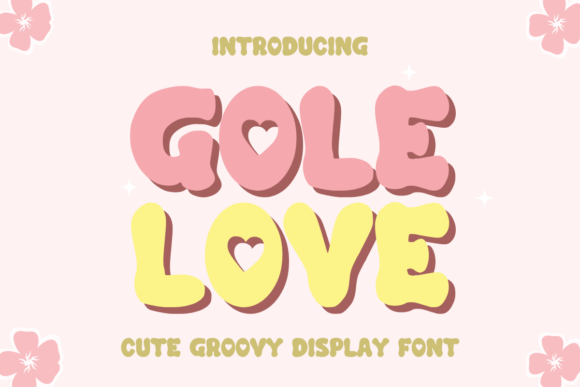
Gole Love Font: A Quirky and Groovy Display Font for Your Creative Projects
Are you looking for a font that can add a touch of quirkiness and grooviness to your creative projects? Look no further than the Gole Love Font! This cute and playful display font is perfect for a wide range of contexts, from posters and flyers to social media graphics and website headers. In this article, we’ll take a closer look at the Gole Love Font, its features, and how you can use it to elevate your designs.
What is Gole Love Font?
Gole Love Font is a display font designed to make a statement. It’s a quirky and groovy font that’s perfect for adding a touch of personality to your designs. The font features bold, rounded letters with a playful and carefree vibe. It’s a sans-serif font, which means it’s clean and easy to read, even at larger sizes.
Key Features of Gole Love Font
- Quirky and Groovy Design: Gole Love Font has a unique and playful design that’s sure to grab attention.
- Cute and Playful: The font features bold, rounded letters that give it a cute and playful feel.
- Clean and Easy to Read: Despite its quirky design, Gole Love Font is clean and easy to read, even at larger sizes.
- Versatile: This font is perfect for a wide range of contexts, from posters and flyers to social media graphics and website headers.
What Makes Gole Love Font So Special?
So, what sets Gole Love Font apart from other fonts out there? Here are a few things that make it special:
- Unique Design: Gole Love Font has a truly unique design that’s unlike any other font out there. Its quirky and groovy vibe is sure to grab attention and make your designs stand out.
- Highly Versatile: This font is perfect for a wide range of contexts, from playful and creative projects to more serious and professional designs.
How to Use Gole Love Font in Your Designs
Now that we’ve covered the features and benefits of Gole Love Font, let’s talk about how you can use it in your designs. Here are a few ideas to get you started:
Design Ideas for Gole Love Font
- Posters and Flyers: Use Gole Love Font to create eye-catching posters and flyers for events, promotions, and more.
- Social Media Graphics: Add a touch of quirkiness and personality to your social media graphics with Gole Love Font.
- Website Headers: Use Gole Love Font to create bold and eye-catching website headers that grab attention.
- Logos and Branding: Consider using Gole Love Font for your logo or branding materials to add a touch of personality and whimsy.
Tips for Getting the Most Out of Gole Love Font
Here are a few tips for getting the most out of Gole Love Font:
- Experiment with Different Sizes: Gole Love Font looks great at a wide range of sizes, so don’t be afraid to experiment and find the perfect size for your design.
- Play with Color: The font’s bold and playful design makes it perfect for bright and bold colors. Try experimenting with different color combinations to find the one that works best for your design.
- Use it Sparingly: While Gole Love Font is a great font, it’s best used sparingly. Consider using it for headings or titles, and a more traditional font for body text.
In conclusion, Gole Love Font is a quirky and groovy display font that’s perfect for adding a touch of personality to your designs. Its unique design, versatility, and ease of use make it a great choice for a wide range of contexts. Whether you’re creating posters and flyers, social media graphics, or website headers, Gole Love Font is sure to grab attention and make your designs stand out.